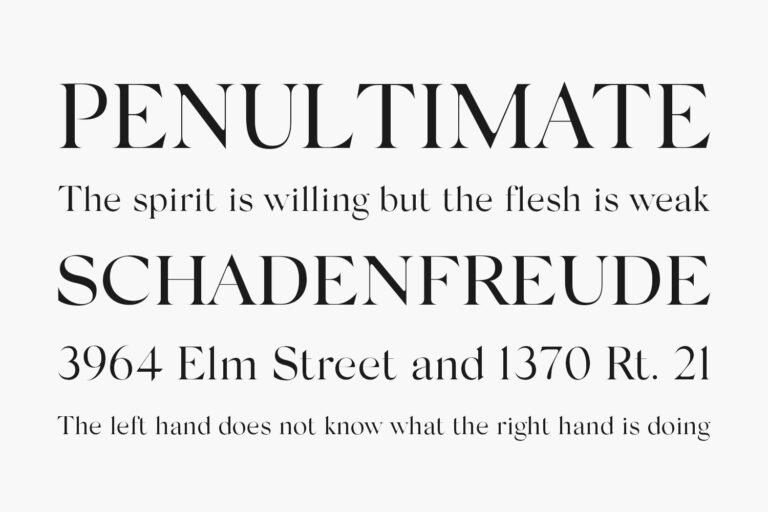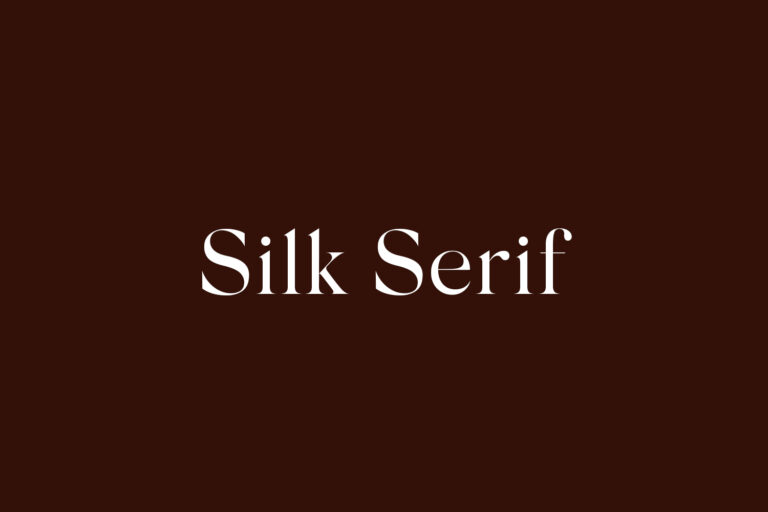
Silk Serif Font
Silk Serif Font - Web woff2 is supported in safari versions 12+. Web silk serif is a serif typeface with bowls that don't connect to the stem, creating a gap at large sizes. Buy silk serif complete family desktop font from silktype on fonts.com. Web silk serif font family. Enriqueta is a serif typeface designed to meet the technical demands of silkscreen printing.
Enriqueta is a serif typeface designed to meet the technical demands of silkscreen printing. Web silk serif font family. Web woff2 is supported in safari versions 12+. Buy silk serif complete family desktop font from silktype on fonts.com. Web silk serif is a serif typeface with bowls that don't connect to the stem, creating a gap at large sizes.
Web woff2 is supported in safari versions 12+. Buy silk serif complete family desktop font from silktype on fonts.com. Web silk serif is a serif typeface with bowls that don't connect to the stem, creating a gap at large sizes. Web silk serif font family. Enriqueta is a serif typeface designed to meet the technical demands of silkscreen printing.